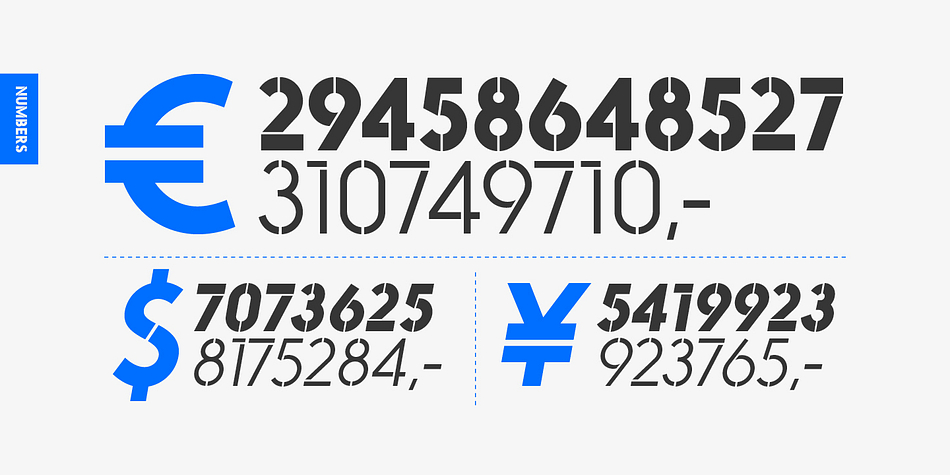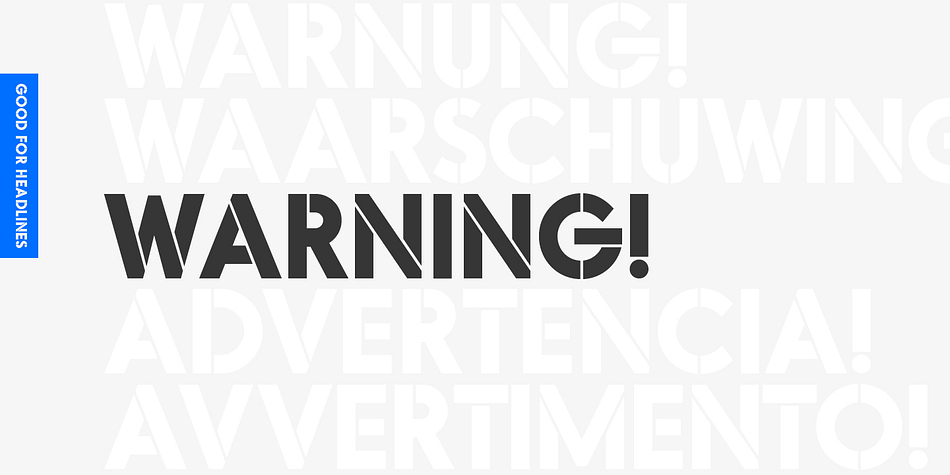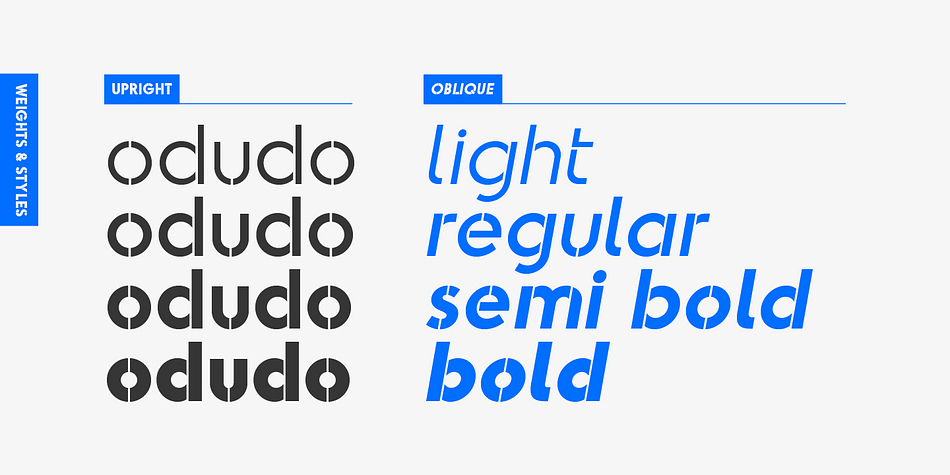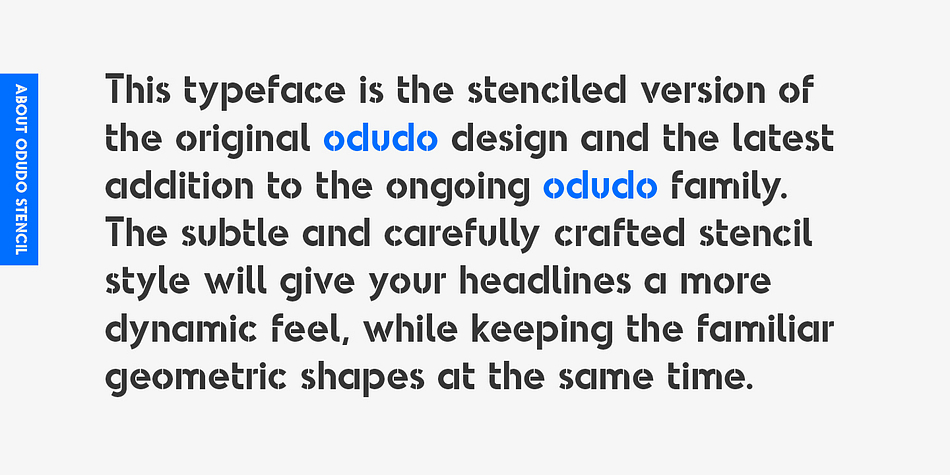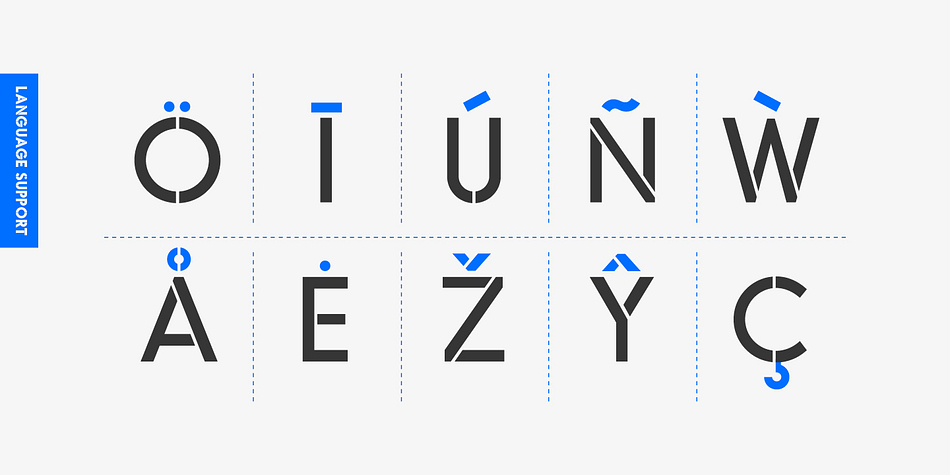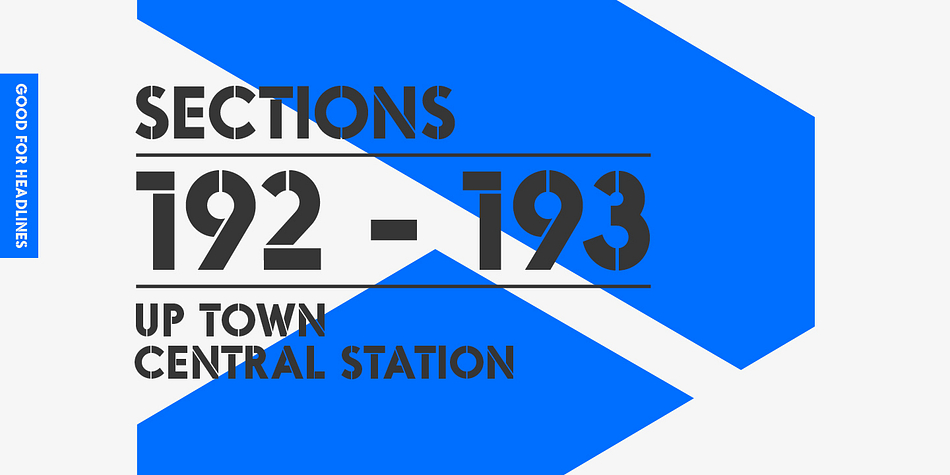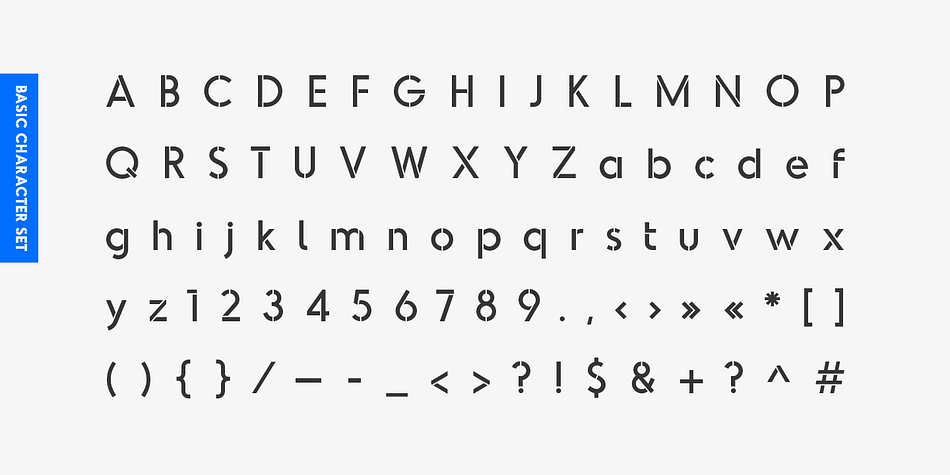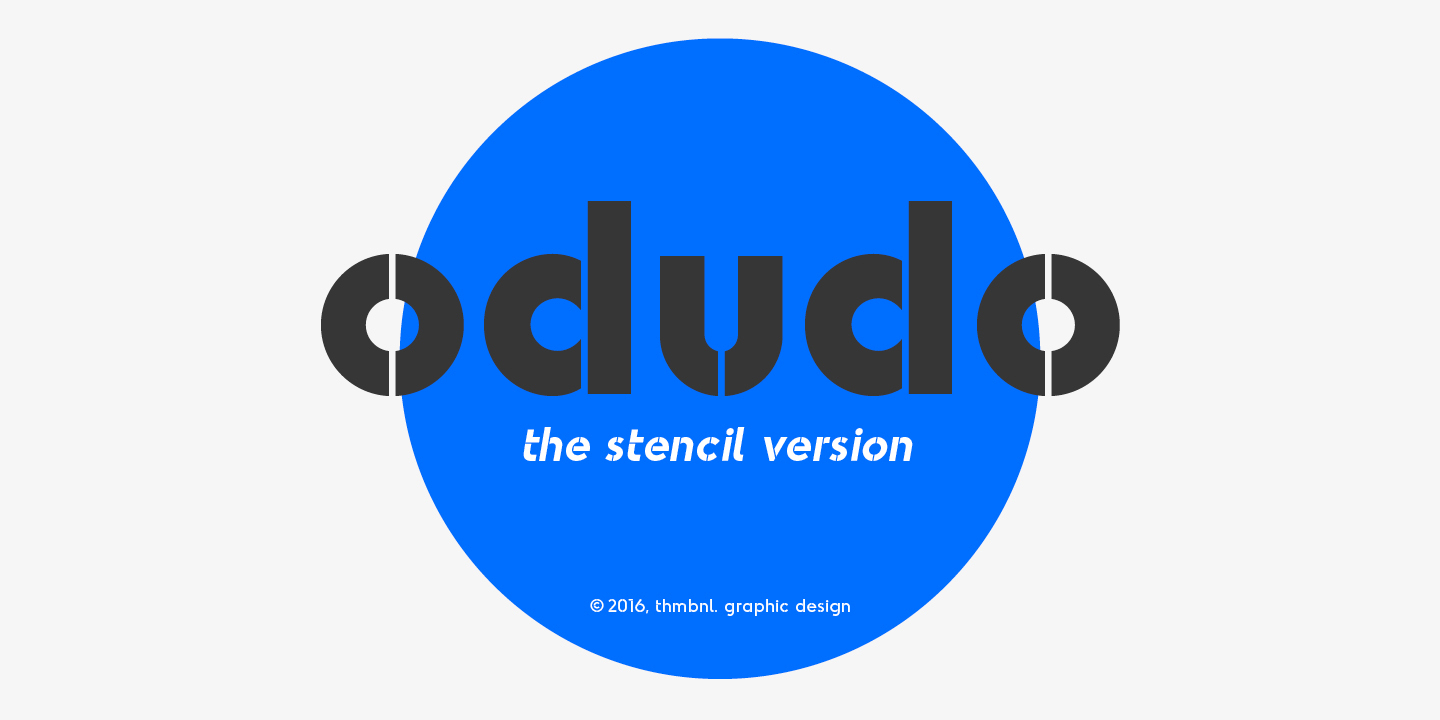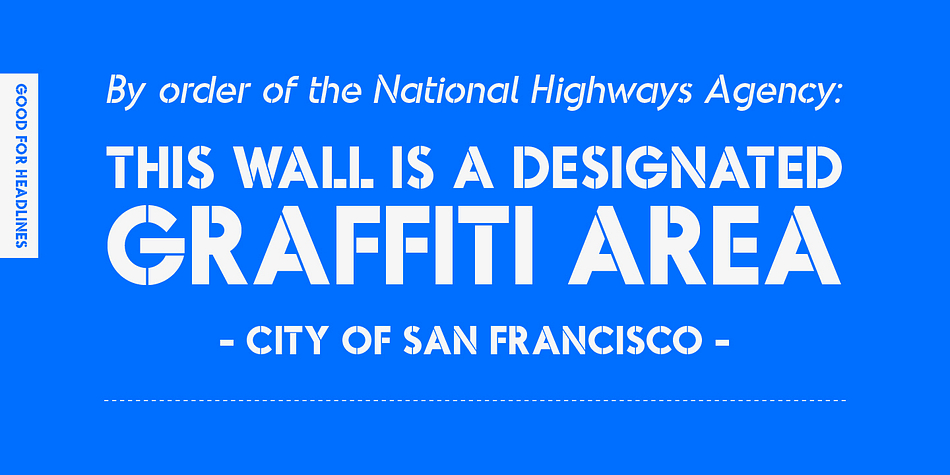
Odudo Stencil is a stencil font family. This typeface has eight styles and was published by thmbnl.
This typeface is the stenciled version of the original Odudo design and the latest addition to the ongoing Odudo family. The subtle and carefully crafted stencil style will give your headlines a more dynamic feel, while keeping the familiar geometric shapes at the same time.